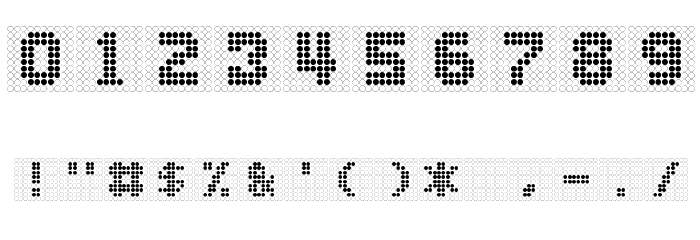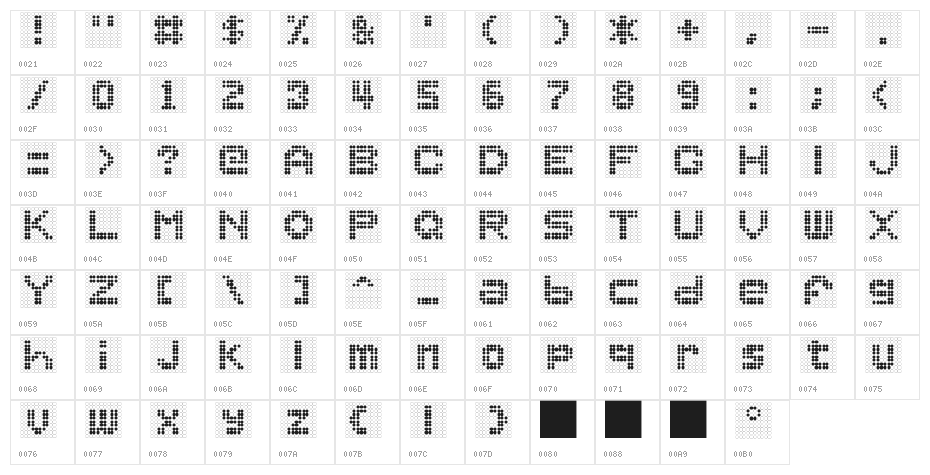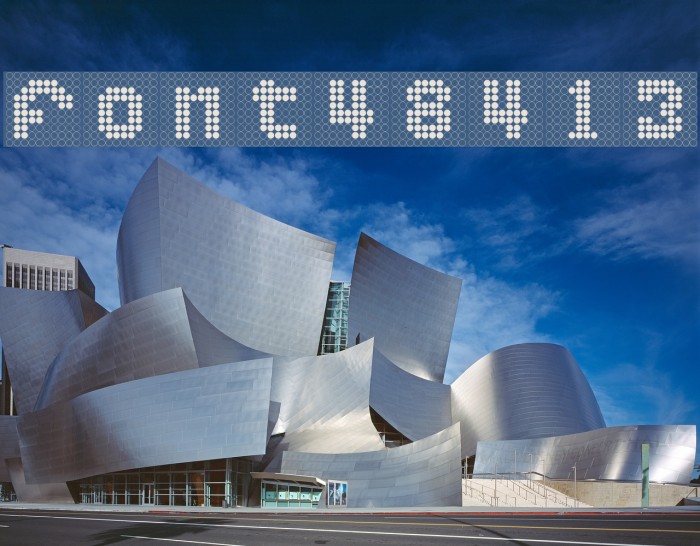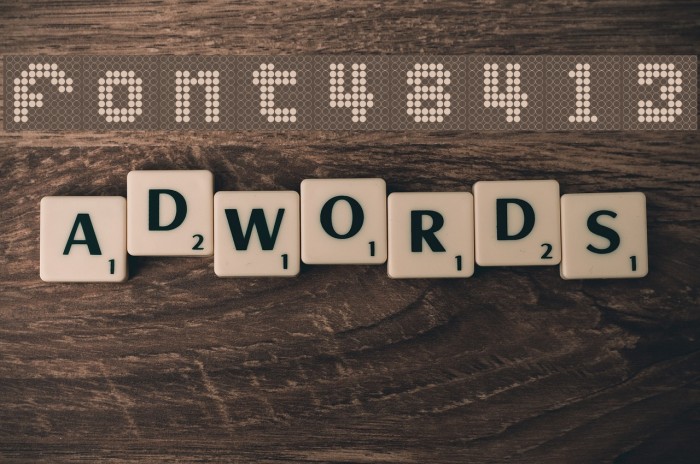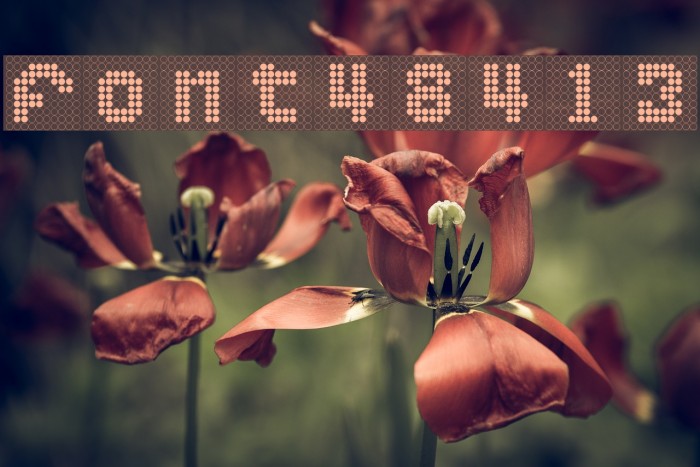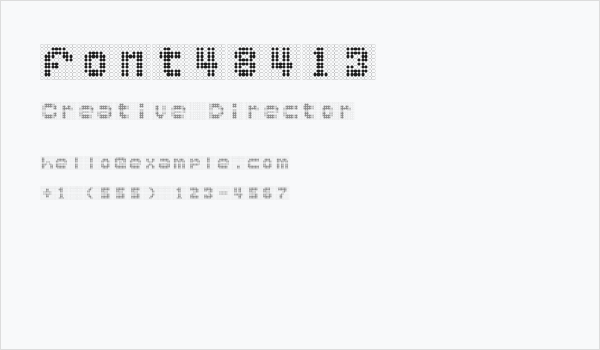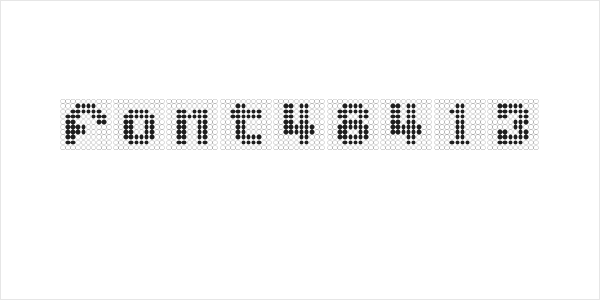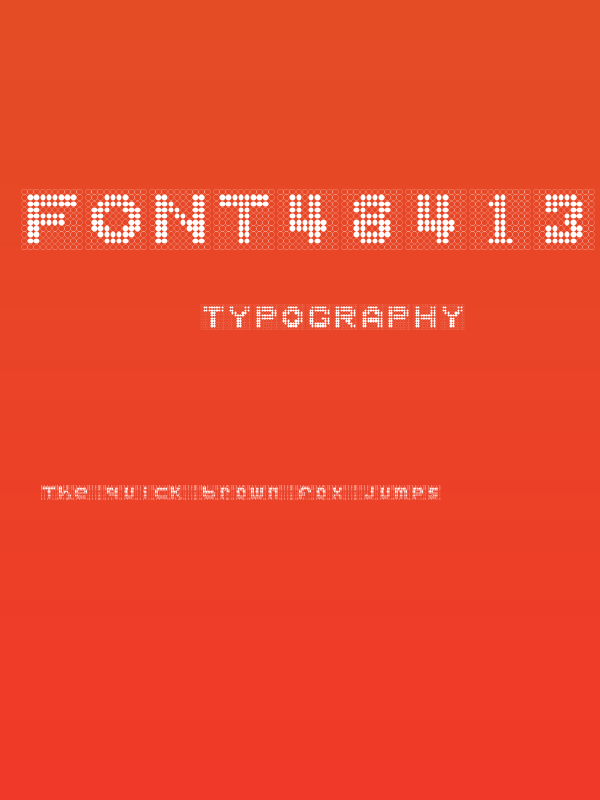
font48413 Font
font48413 Description
This font is a unique and modern take on digital typography, characterized by its dot matrix style. Each character is composed of a grid of dots, creating a pixelated effect that is reminiscent of early digital displays and LED screens. The uniformity of the dots gives the font a structured and geometric appearance, while the rounded edges of the dots add a touch of softness. This design is both futuristic and retro, making it versatile for various creative applications. The font maintains consistent spacing and alignment, ensuring readability despite its unconventional form. It is particularly effective in conveying a technological or digital theme, making it ideal for projects that require a modern and innovative look.
Use CaseHeadlines, Logos, Digital displays
Proposed ProjectsIdeal for digital displays, tech-themed designs, retro gaming interfaces, and futuristic branding.